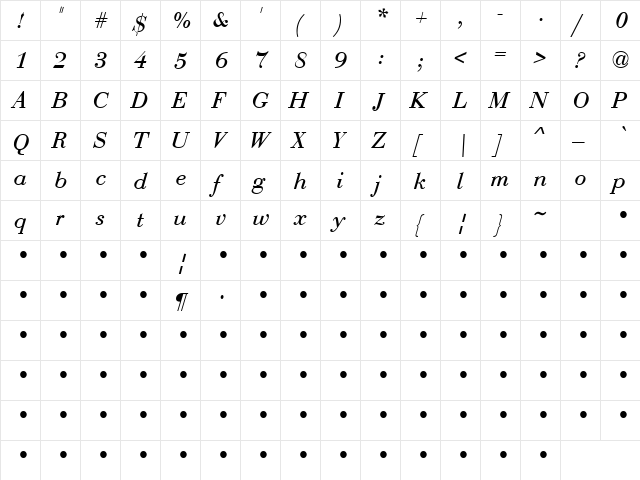
Us And Them 2 Italic
Design Context for Us And Them 2 Typeface
Us And Them 2 takes a measured approach to typography — its balanced proportions and neutral character make it a reliable workhorse for both digital and print work. The dynamic lean of this cut emphasises speed and emphasis in any layout.